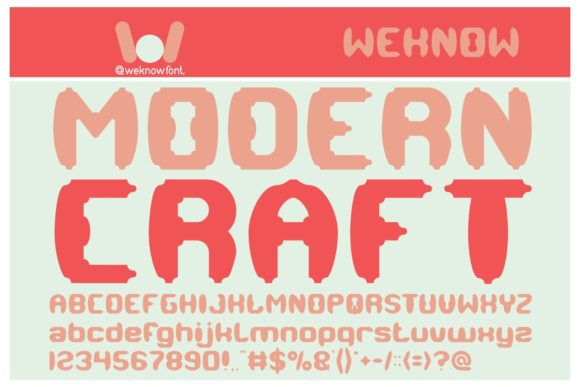
Welcome to the realm of digital artistry, where fonts take center stage as the unsung heroes of captivating design. In the vast expanse of the internet, your website stands as a beacon of information, an oasis of knowledge eagerly awaiting exploration. But what truly elevates a website from ordinary to extraordinary is the invisible force that shapes its visual identity – the font.
Enter Modern Craft Font, the ultimate typographic masterpiece designed to transform your ebook website into a sensory symphony. This display font, a brainchild of weknow, is a bold and robotic creation, a testament to the power of digital artistry. Its carefully crafted strokes, sharp angles, and distinct curves dance across the screen, capturing the essence of modernity and innovation.
Modern Craft Font is more than just a collection of characters; it's a portal to a world where creativity knows no bounds. Its bold presence commands attention, demanding the reader's gaze and inviting them to delve deeper into the depths of your ebook's captivating content. Each letter, a meticulously engineered work of art, exudes a sense of precision and purpose, guiding the reader's journey through your digital masterpiece.
As a display font, Modern Craft Font possesses an innate ability to showcase your ebook's titles, headings, and key phrases with unrivaled prominence. Its striking appearance ensures that your words ignite the reader's imagination, leaving an indelible mark on their minds. Whether you seek to convey a sense of authority, innovation, or playfulness, Modern Craft Font effortlessly adapts to your creative vision, becoming an integral part of your ebook's storytelling prowess.
But Modern Craft Font's allure extends far beyond its visual appeal. It's a font crafted with the reader's experience at its core. Its clean lines and sharp curves ensure effortless readability, allowing your words to flow seamlessly across the screen, captivating the reader from the opening sentence to the final chapter.
With Modern Craft Font as your digital companion, your ebook website transcends the boundaries of mere information dissemination, becoming an immersive experience that captivates readers and leaves them yearning for more. It's a font that empowers you to create a digital haven where words dance, ideas ignite, and imaginations soar.